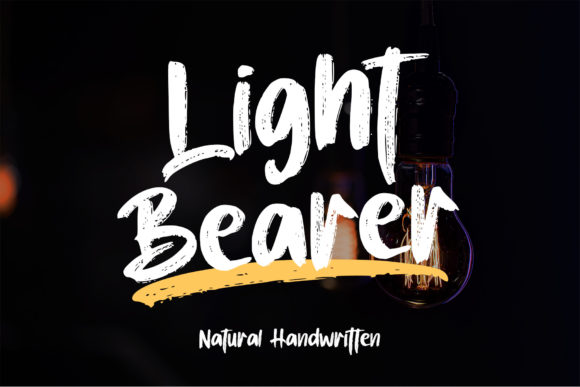
Welcome to the world of Light Bearer, an extraordinary script font family that will ignite your creativity and elevate your designs to new heights. Embrace the power of brushstrokes, meticulously crafted to capture the essence of artistic flair and handwritten charm. Immerse yourself in a symphony of glyphs and sweeps, easily accessible through PUA code, granting you limitless possibilities for expression.
Unleash the potential of Light Bearer and let your imagination soar. This remarkable font family is a masterpiece tailored for branding, labels, posters, and more. Its dynamic style adds an instant touch of sophistication, leaving an unforgettable impression on your audience.
Picture your brand adorned with Light Bearer's elegant curves, conveying a sense of timeless elegance and luxury. Your products will stand out from the crowd, exuding an aura of exclusivity and excellence.
Envision your labels transformed intominiature works of art, captivating customers with their intricate details and alluring script. Let Light Bearer's brushstrokes weave a tale of allure and enchantment, inviting customers to engage with your products on a deeper level.
Imagine your posters becoming visual masterpieces, captivating the eyes of passersby with their bold strokes and captivating characters. Light Bearer's ability to evoke emotions will draw attention and leave a lasting impact, making your messages impossible to ignore.
As a business owner, you recognize the importance of creating a strong brand identity. Light Bearer is your secret weapon, embodying the perfect blend of creativity, professionalism, and uniqueness. With this font family at your disposal, you'll craft a brand that resonates with your audience and sets you apart from the competition.
Don't let your designs be ordinary. Embrace the artistry of Light Bearer and unlock a world of creative possibilities. Let your brand shine, your labels captivate, and your posters inspire. Experience the transformative power of Light Bearer today and embark on a journey of visual storytelling that will leave a lasting legacy.